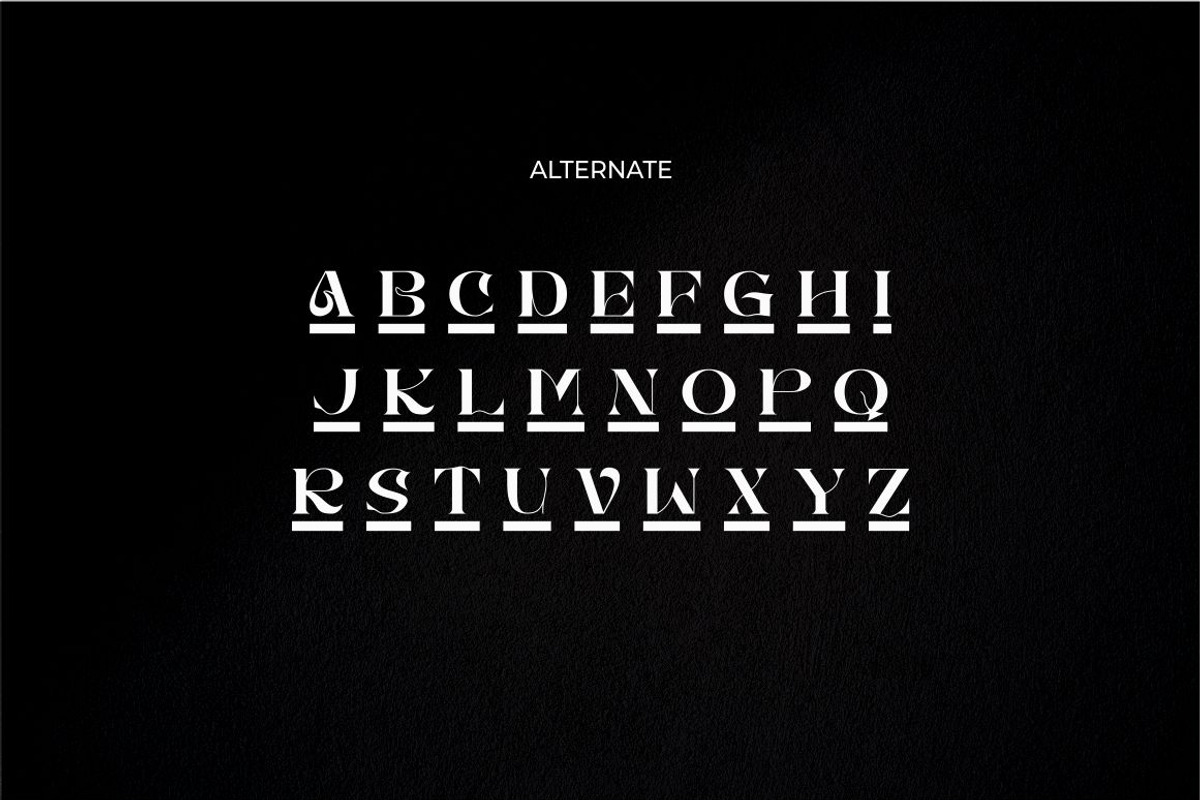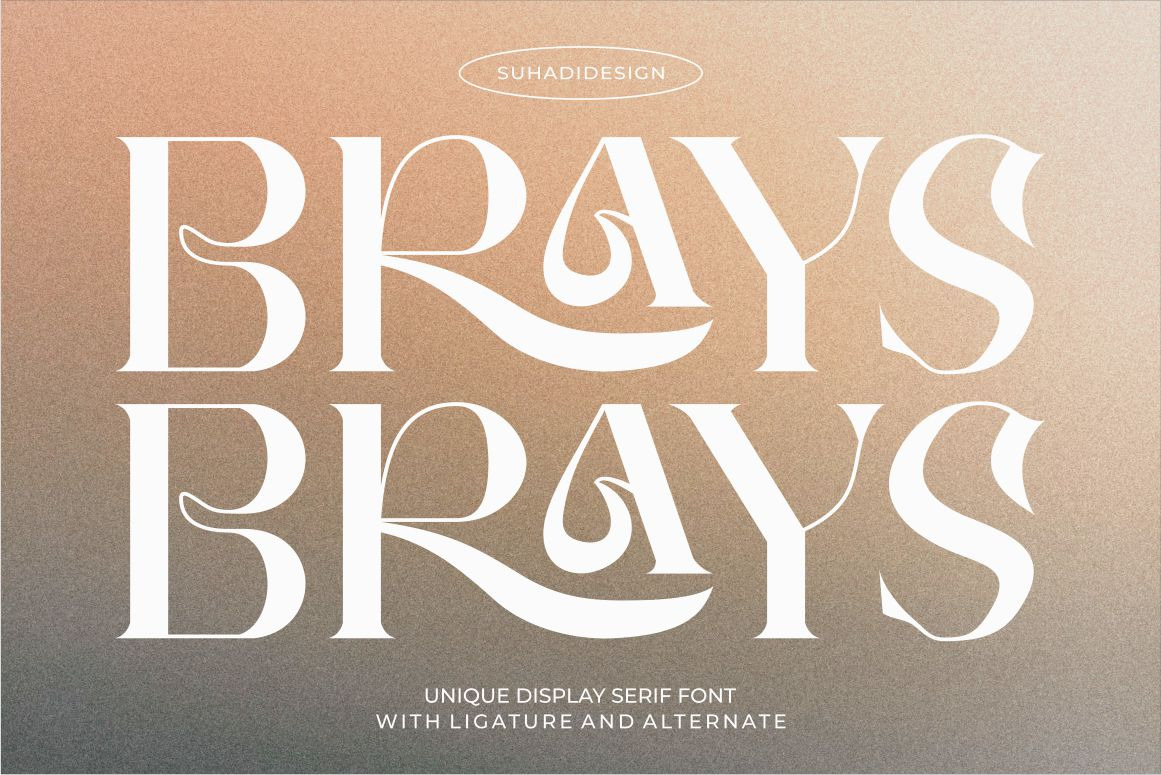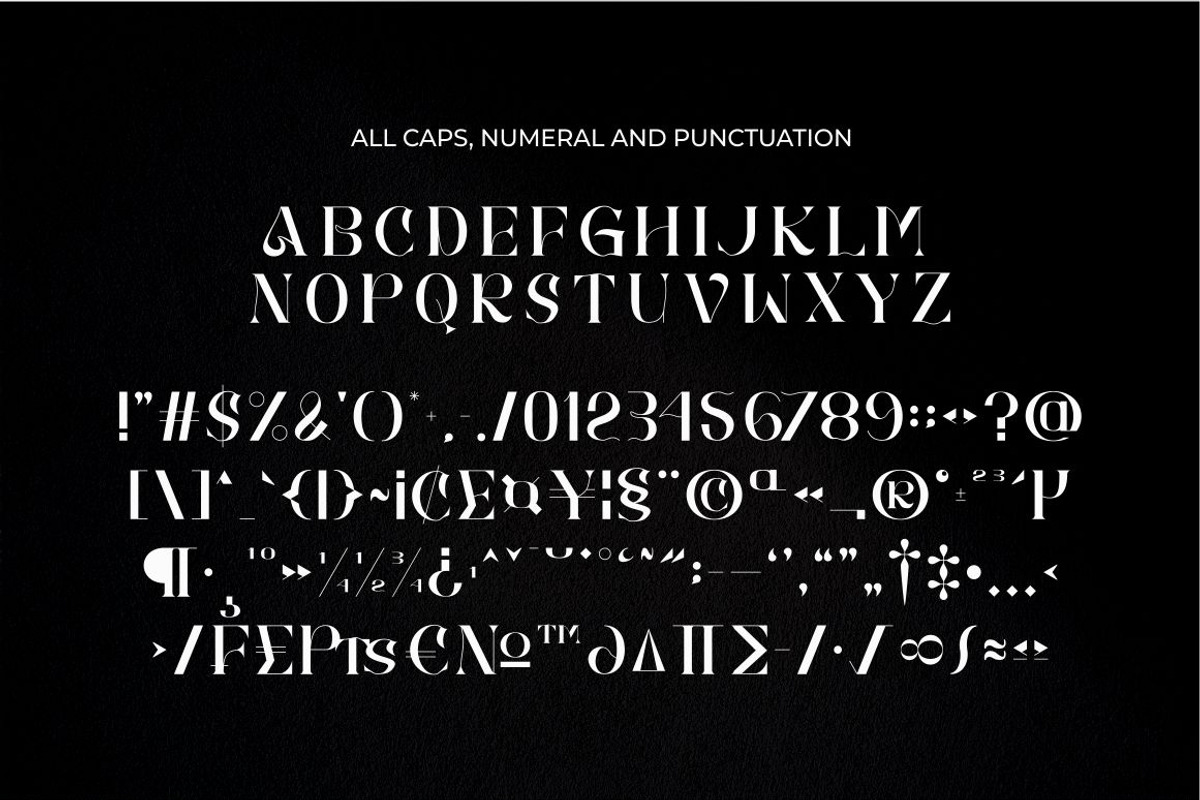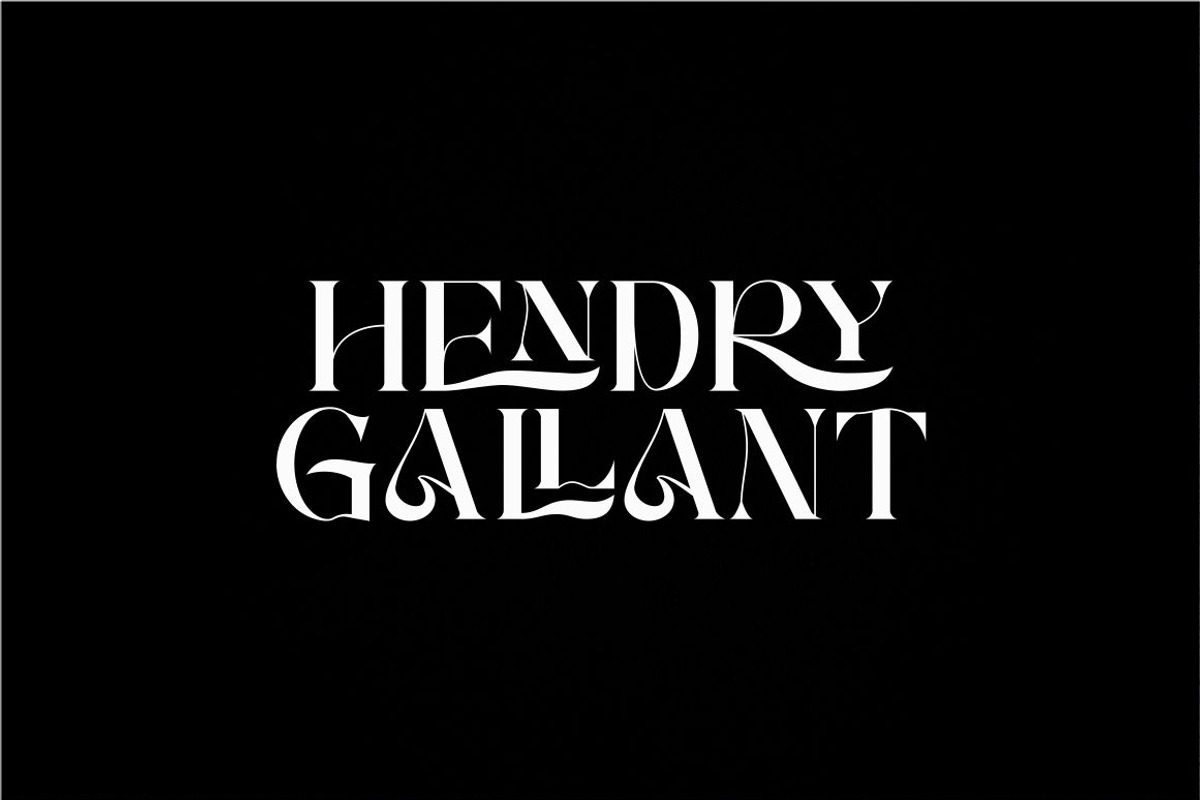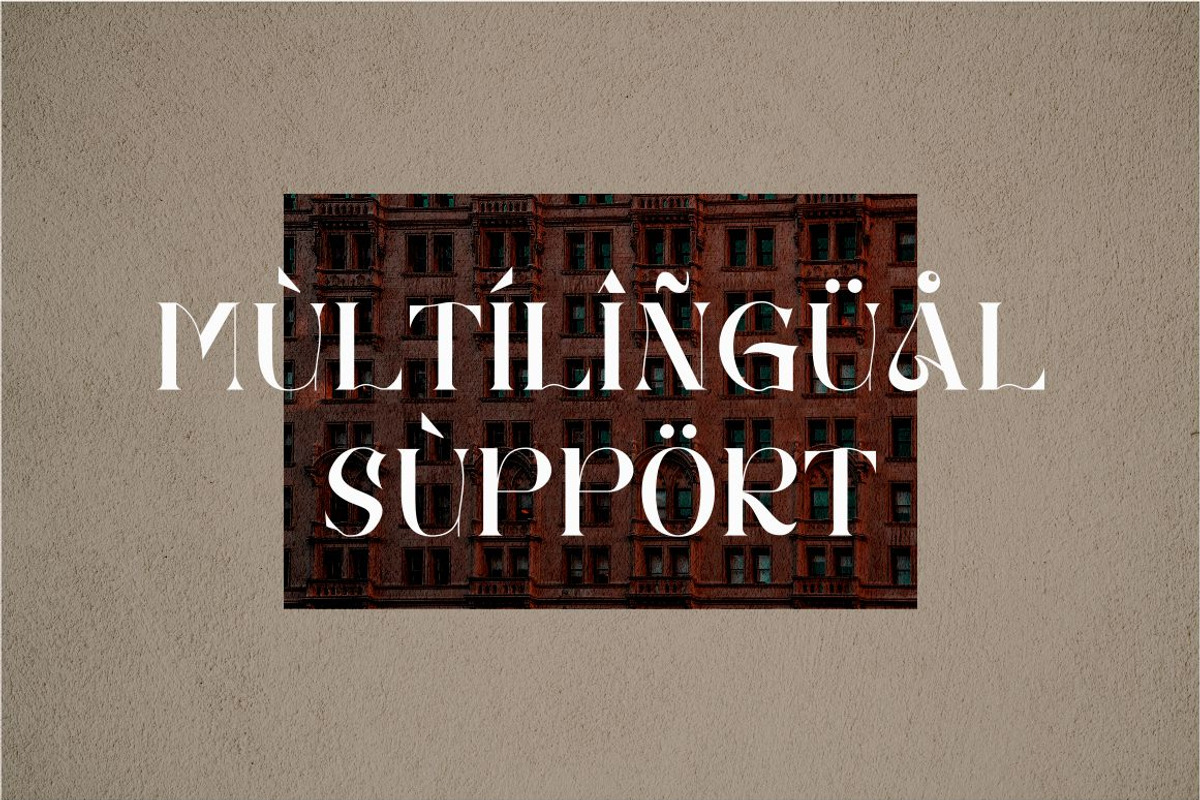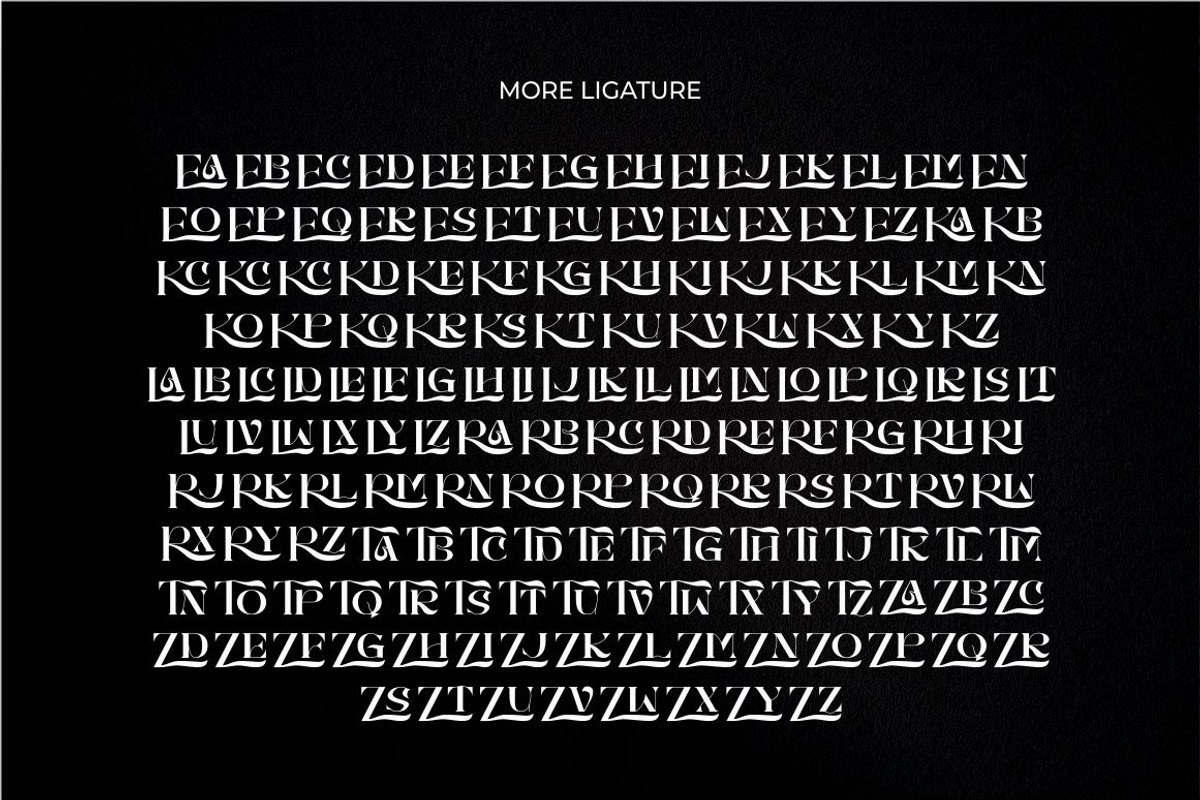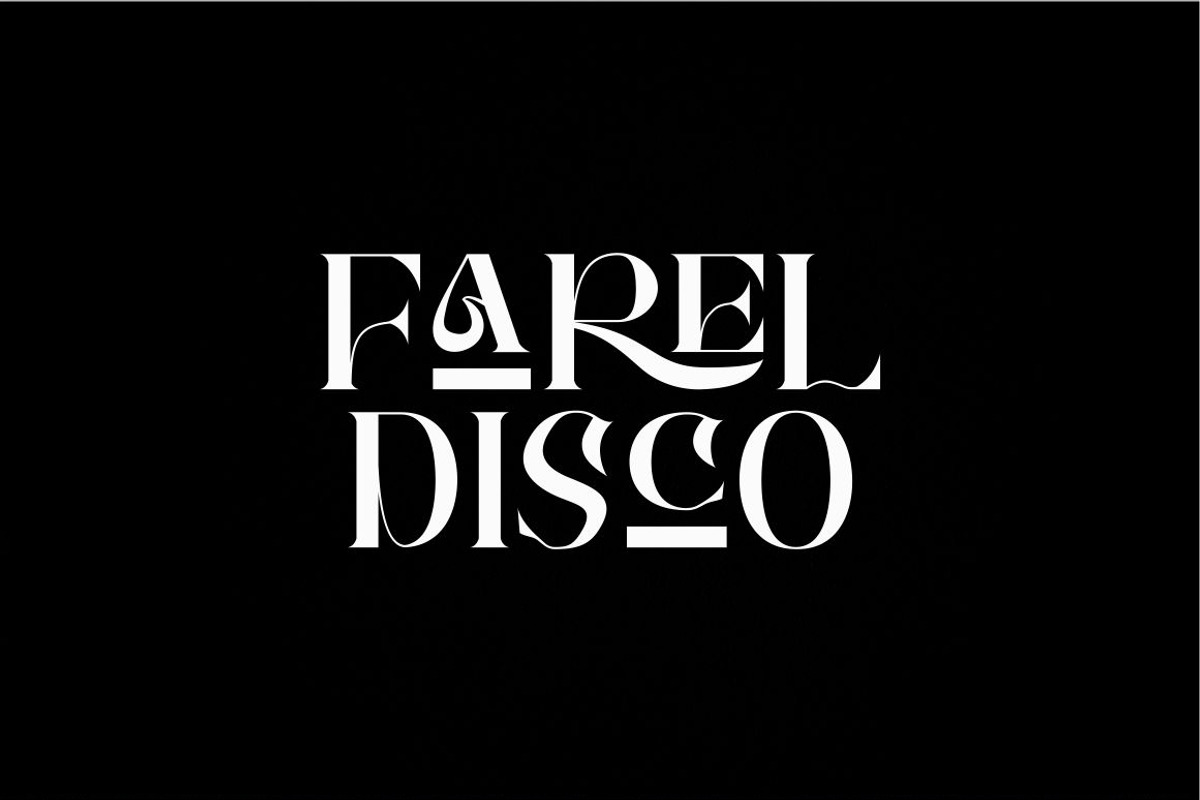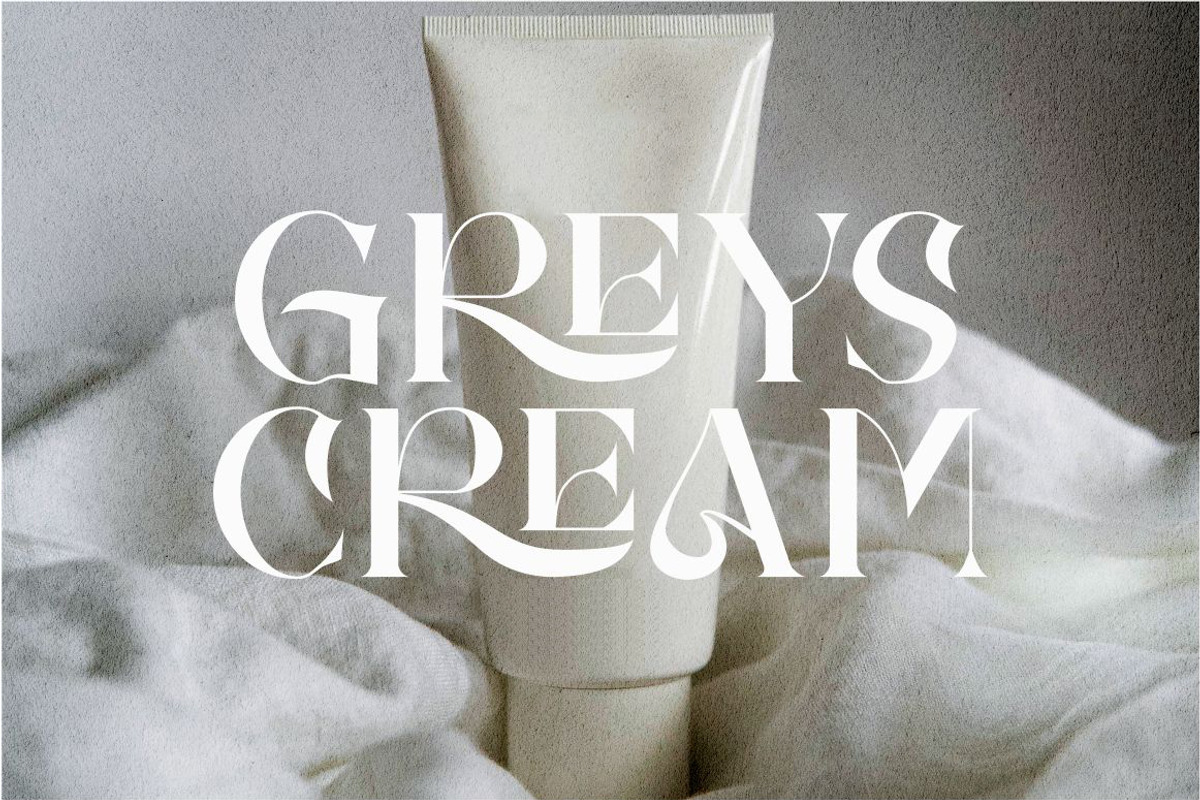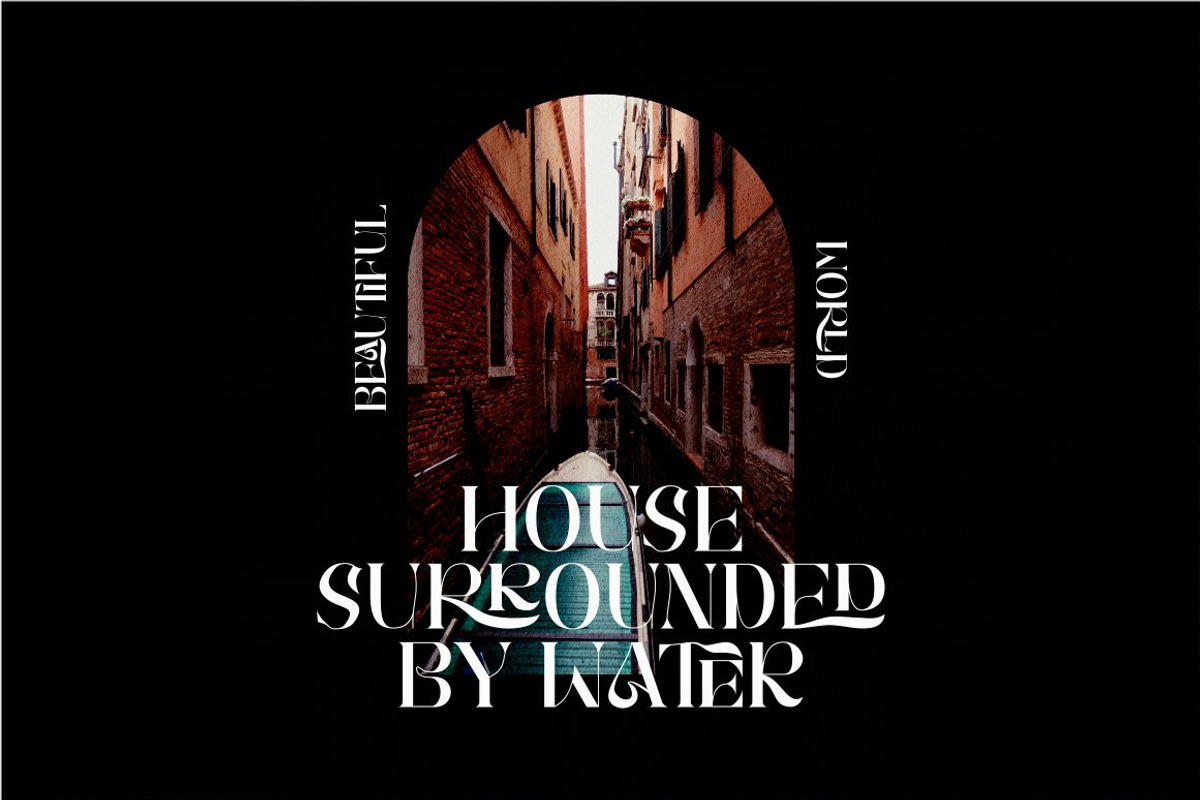
Brays unique display serif font
According to the market demand, fonts tend to be unique fonts, so I decided to make a unique display serif font that is in your view. The Brays font is a font with many ligatures that is very unique and sought after, comes with a stylish style to become a market favorite. We keep this font looking elegant, classy, easy to read, stylish, attractive and easy to use.
Brays Font is a great choice for beauty brands, magazines, travel, newspapers, books, brand names, branding, quotes, album covers, and other projects. The Brays font is here to take the quality of your designs to a higher level.
Brays Font is my Twenty ninth Font created in 2022
• All capital letters • Stylistic ligatures • Stylistic alternate • Multilingual Support • Numeral and punctuation